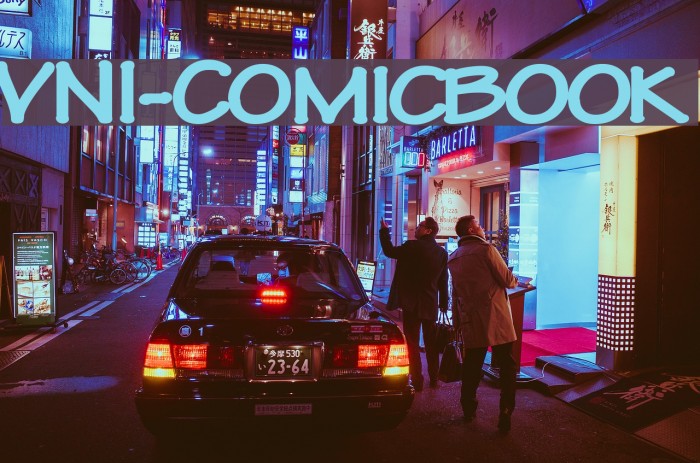
VNI-Comicbook Font
This font features a playful and bold style, reminiscent of classic comic book lettering. The characters are rounded and slightly irregular, giving them a hand-drawn appearance. The uppercase and lowercase letters maintain a consistent weight, contributing to a cohesive look. The numerals and special characters are designed to match the playful aesthetic, making them suitable for informal and creative projects. The overall design is approachable and friendly, ideal for capturing attention in a fun and engaging way.
A playful, bold font with a comic book style and hand-drawn feel.
- Proposed Projects: Ideal for comic books, children's books, playful branding, and creative posters.
- Overall Style: Playful, Comic